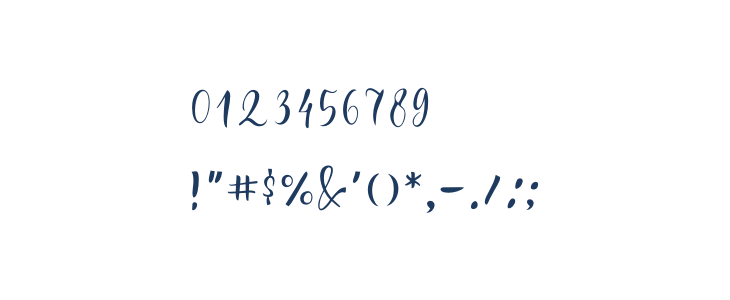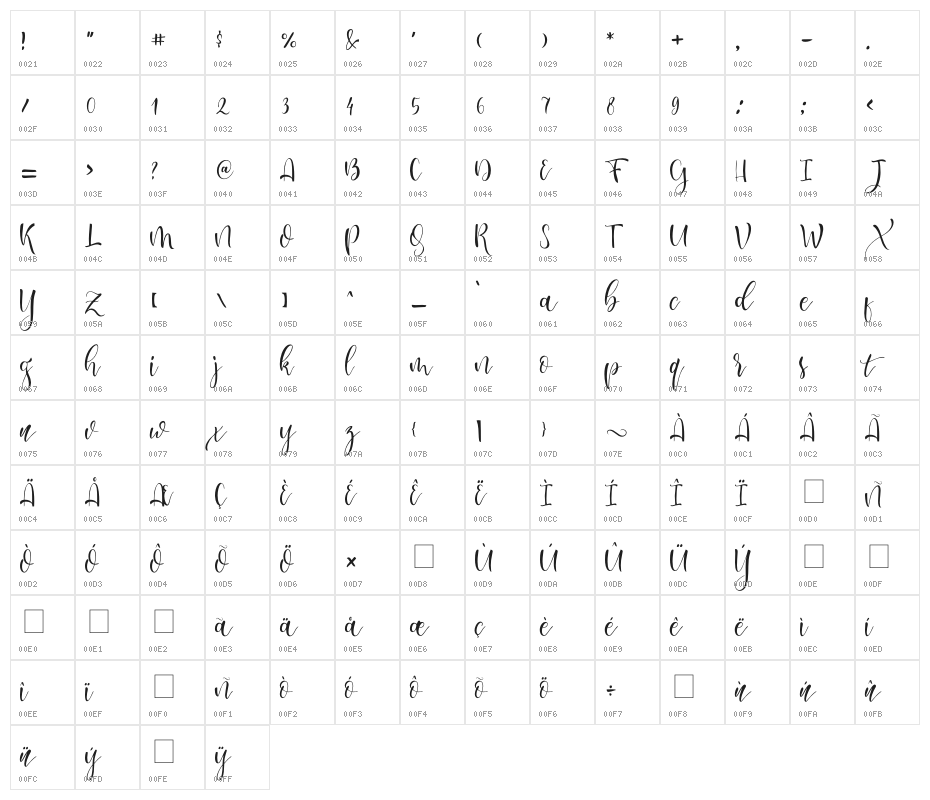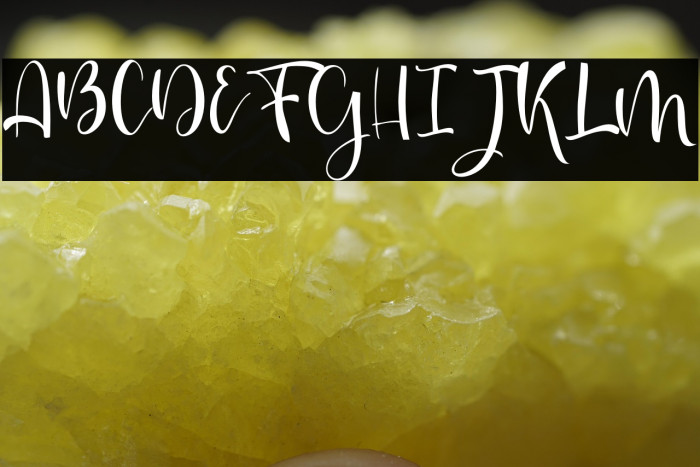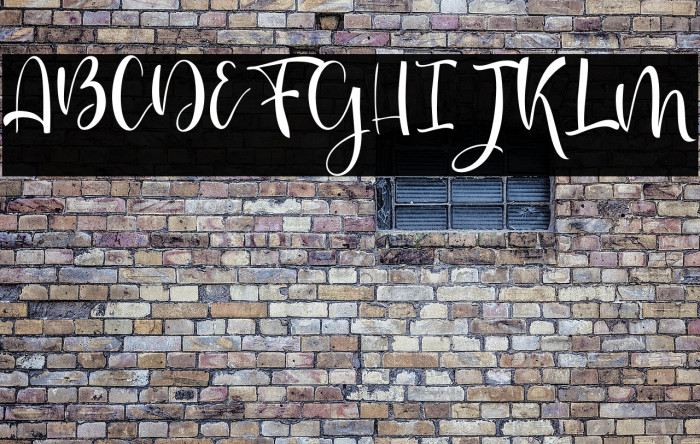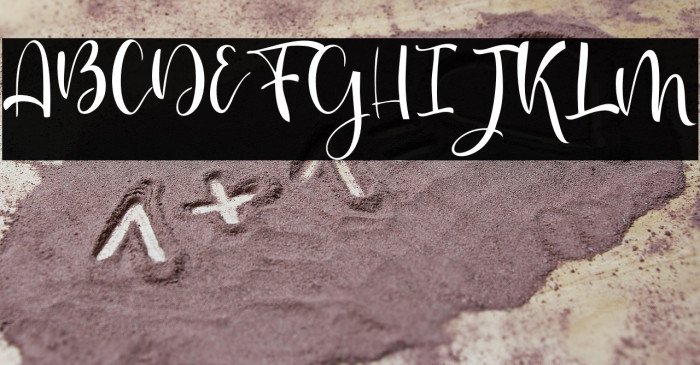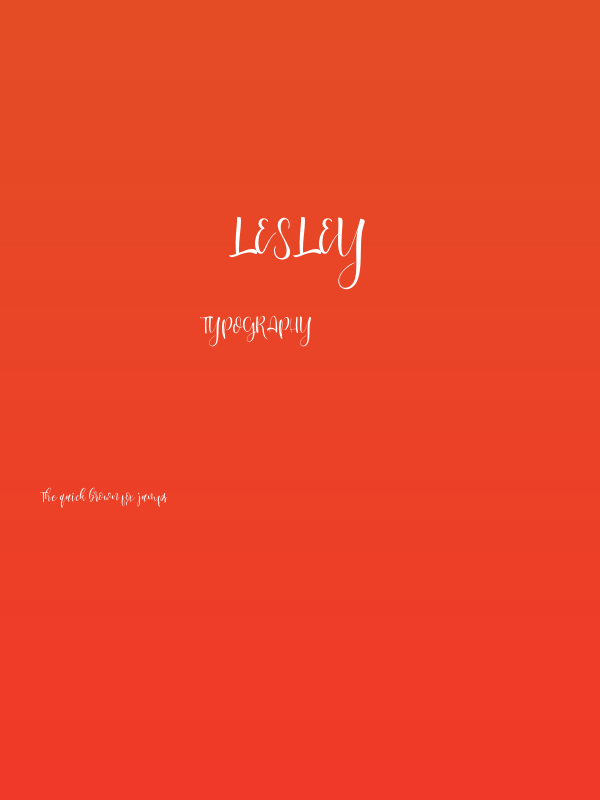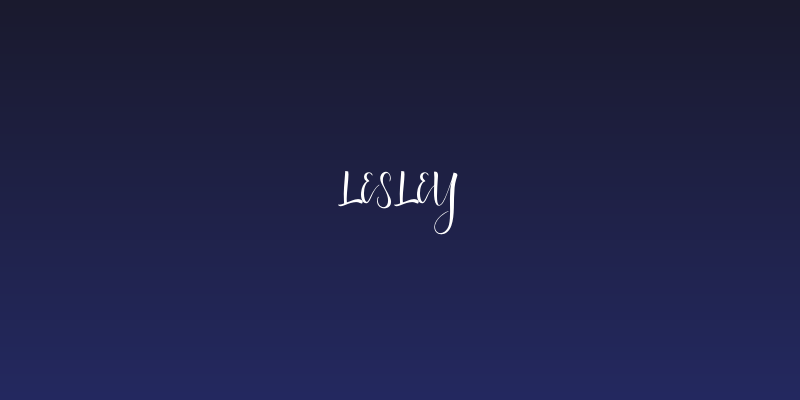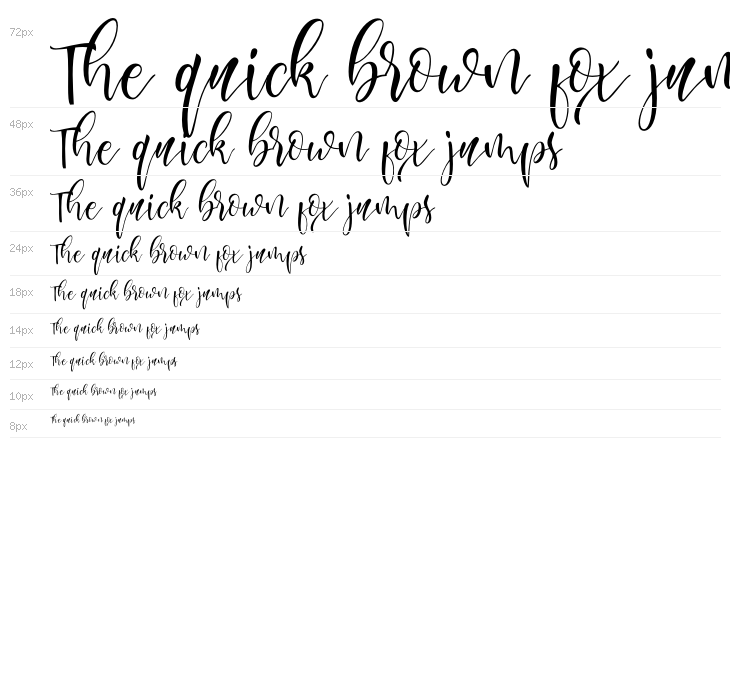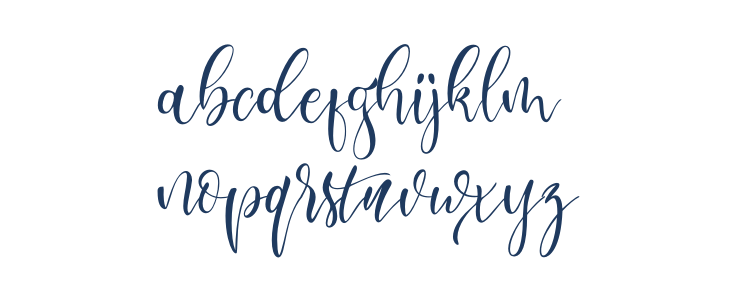
lesley Font
lesley Description
This font features a flowing, cursive style with a modern twist, characterized by its elegant and fluid strokes. The uppercase letters exhibit a graceful, sweeping motion, while the lowercase letters maintain a consistent, connected script. The numbers and special characters are designed with the same fluidity, ensuring a cohesive appearance across all elements. The font's overall look is both sophisticated and approachable, making it suitable for a variety of creative applications. Its unique style is perfect for adding a personal touch to any design project.